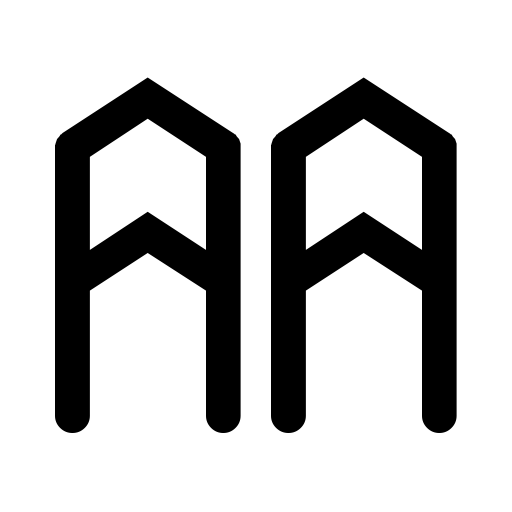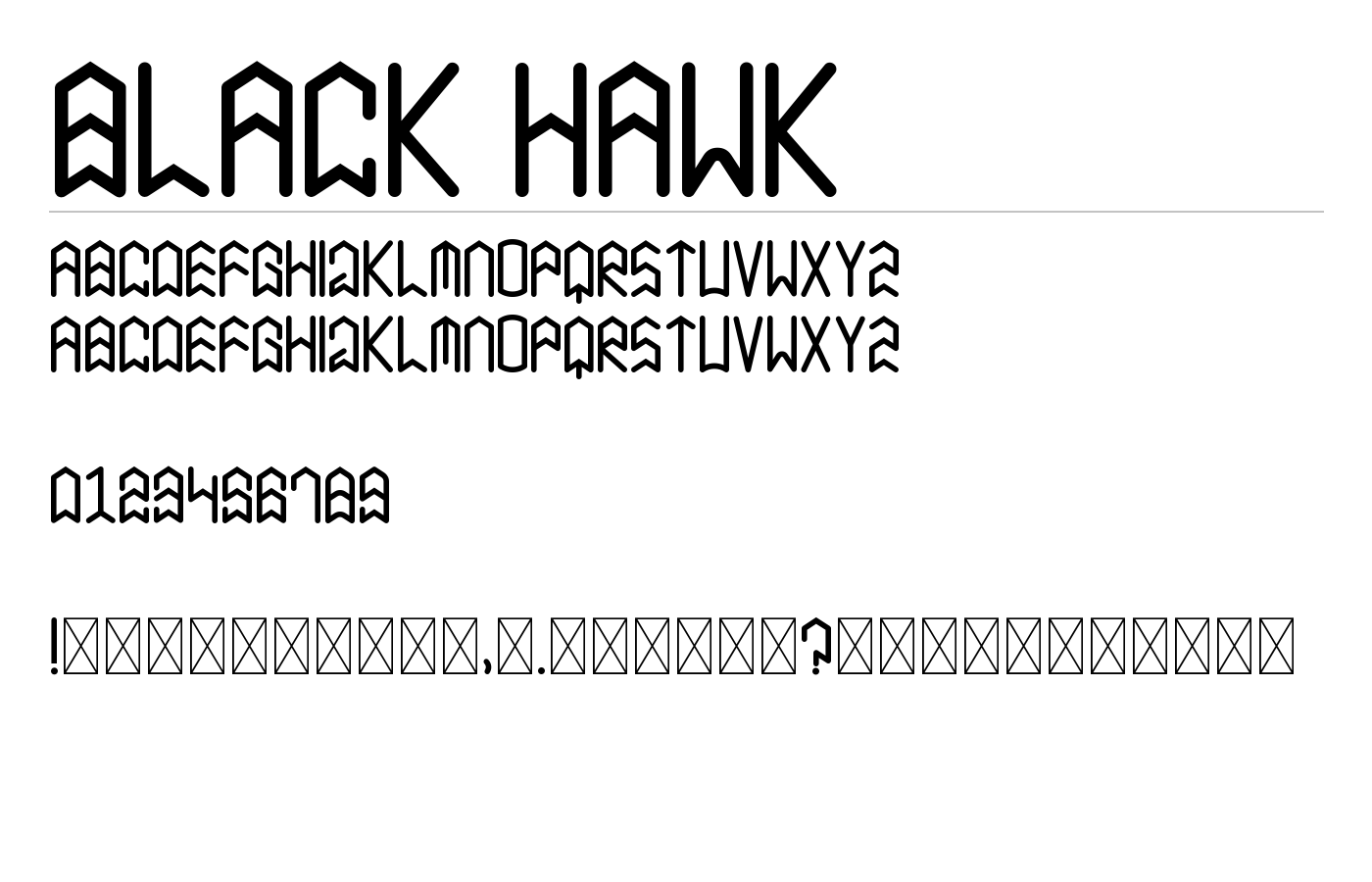
Black Hawk is a distinctive, narrow sans serif font characterized by its angular, geometric letterforms and high x-height that create a futuristic and edgy look. With evenly weighted strokes and unique, arrow-like shapes integrated into characters, it conveys a modern, tech-inspired personality ideal for bold headlines, logos, and creative branding where a strong, unconventional impression is desired. This font works best in display contexts, bringing a sharp and innovative vibe to fashion, gaming, or tech projects.
Black Hawk Font
About Black Hawk Font